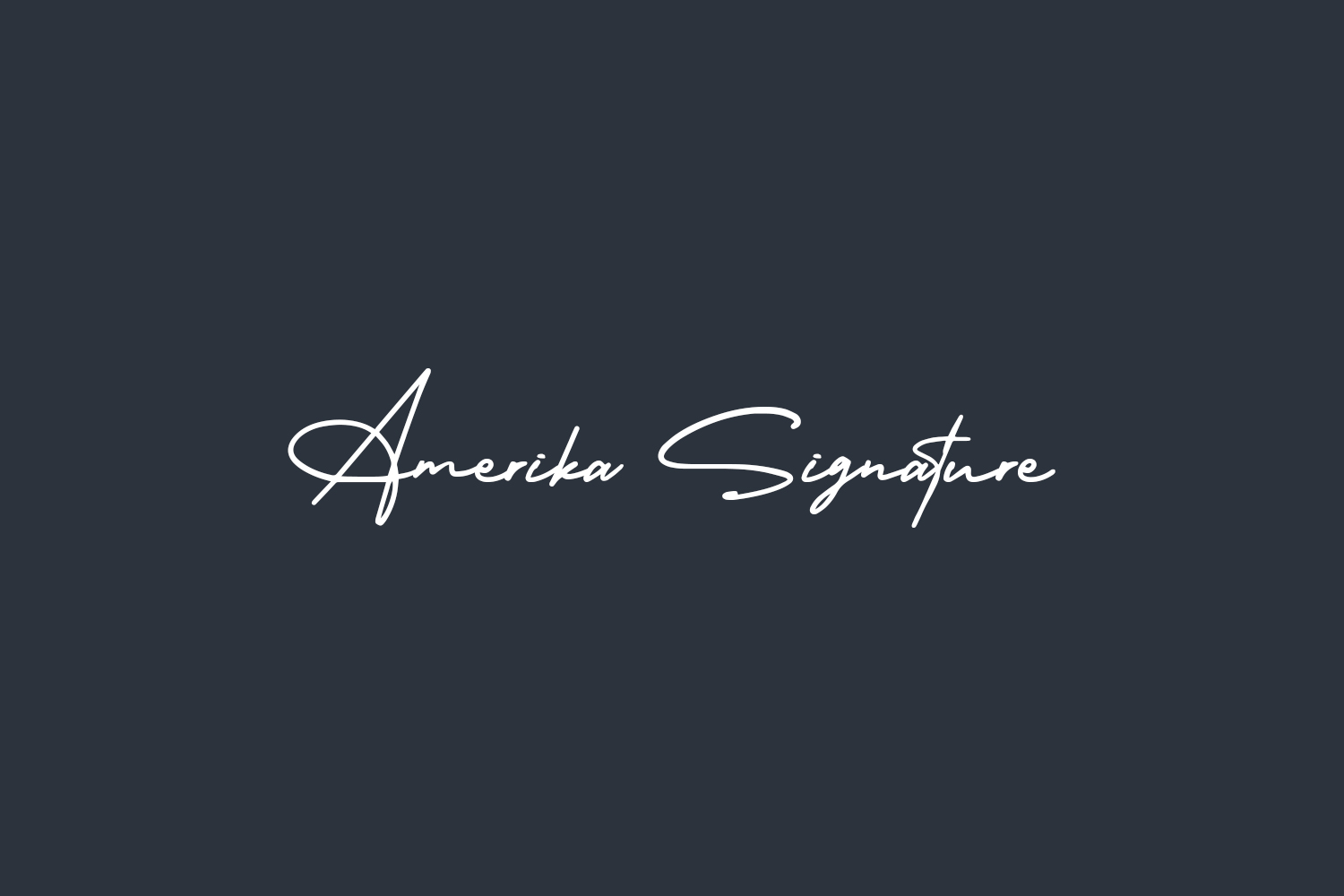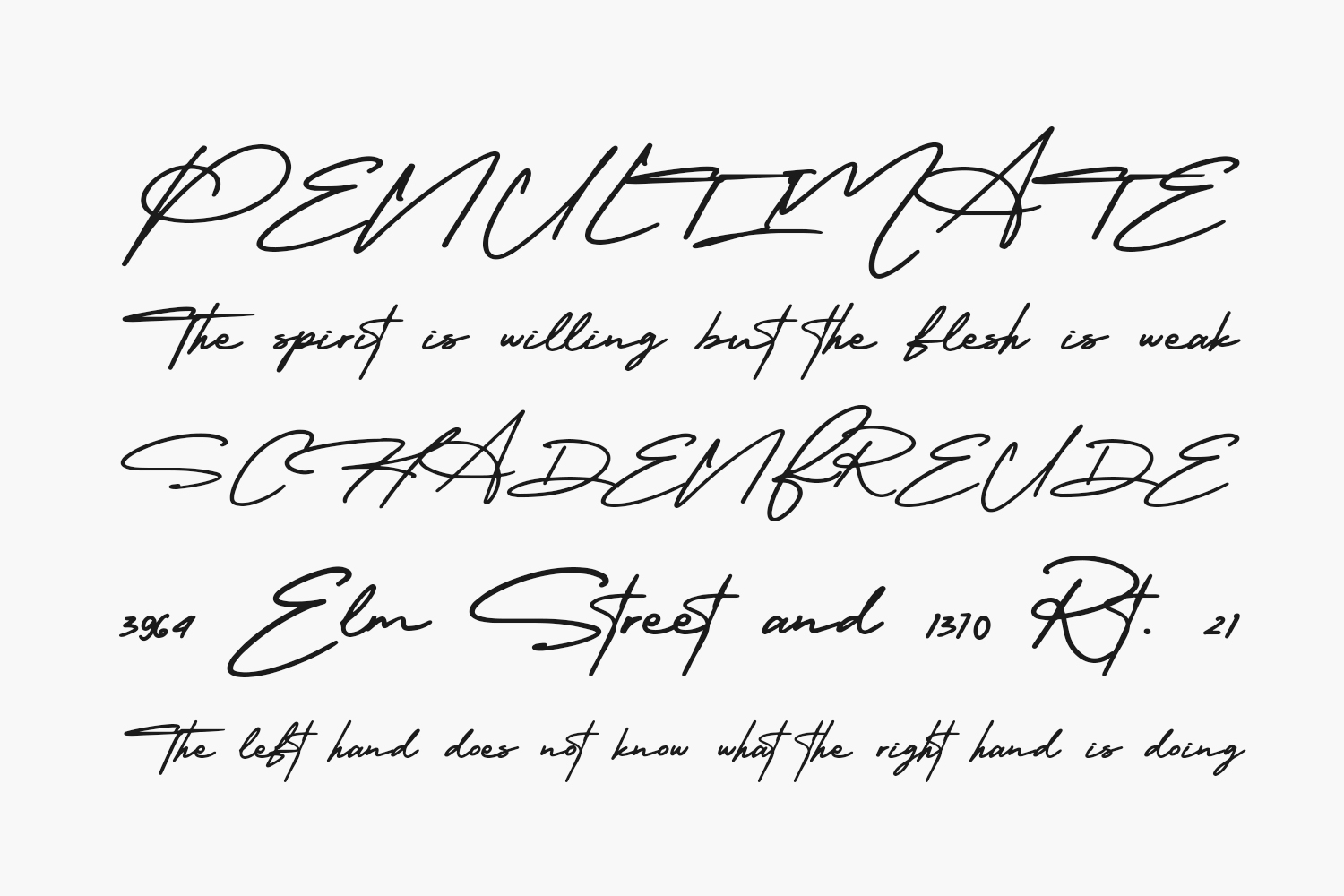
Amerika Signature Free Font was is a fashionable and beautiful handwritten font. It has a classy, elegant, and modern look that can be used for logos, branding, invitations, stationery, wedding designs, social media posts, and much more. Amerika Signature Free Font was designed by Scratch Design and is free for personal use only. Please purchase the full version for commercial use.